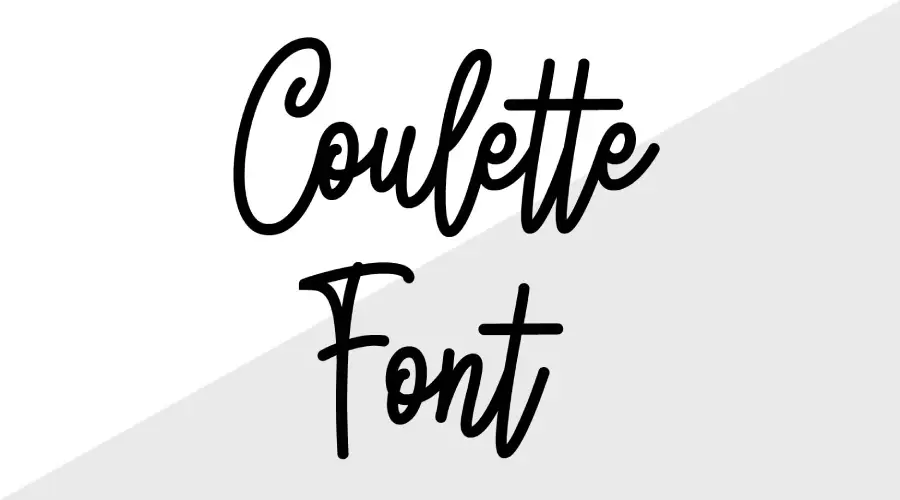
Coulette Font
Coulette is a beautiful and elegant script font that is perfect for a variety of uses, including invitations, branding, and social media posts. The font features a flowing, handwritten style with vintage charm. In this article, we will explore the features and characteristics of the Coulette font, and how it can enhance your projects.
About the font and its feature
Coulette is a monoline font, meaning it has consistent line weight throughout. This gives the font a clean, streamlined look that’s easy on the eyes. It’s suitable for a variety of uses, including posters, wedding invitations, fashion branding, and photography watermarks.
Coulette Font Usage and Effectiveness
Coulette font is very effective in creating a beautiful and elegant impression in your designs. The font has a smooth and graceful style. Whether you’re designing a wedding invitation or a fashion brand logo, it can help you create spectacular designs that stand out.
It’s suitable for a variety of uses, including posters, wedding invitations, fashion branding, and photography watermarks.